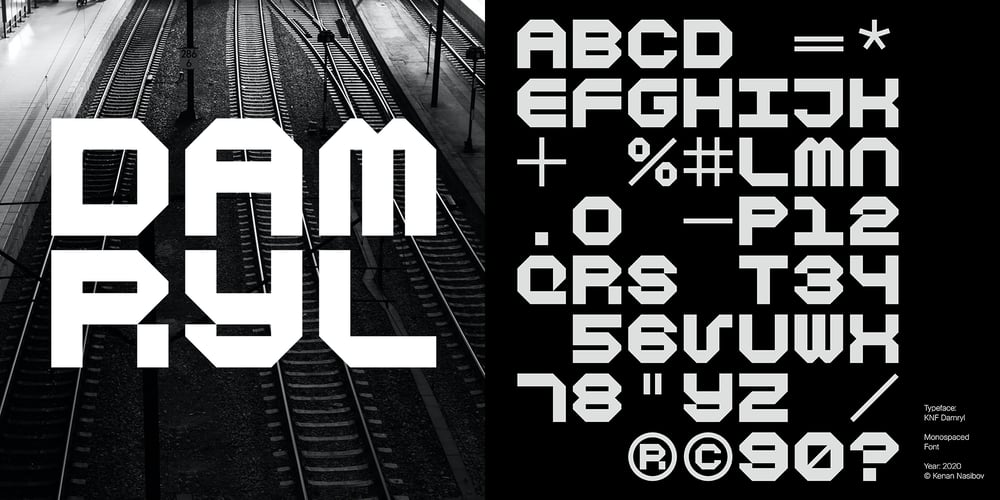
KNF Damryl
KNF Damryl font
KNF Damryl Font Family was designed by Kenan Nasibov and published by Kenan Nasibov Fonts. KNF Damryl contains 1 styles and family package options. KNF Damryl is a monospaced display font that can also be described as a modern geometric sans serif. Inspired by geometrics and postmodernist typefaces like Gridnik and FRAC, KNF Damryl is most suitable for headlines, posters, magazines, and logos. KNF Damryl has a bold presence and an artfully utilitarian feel, making it an incredible addition to your typeface library.